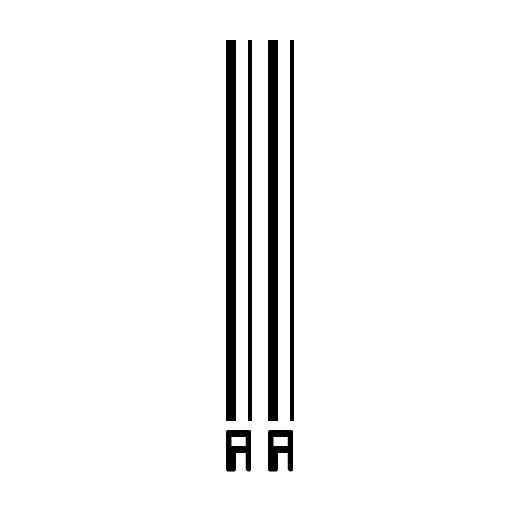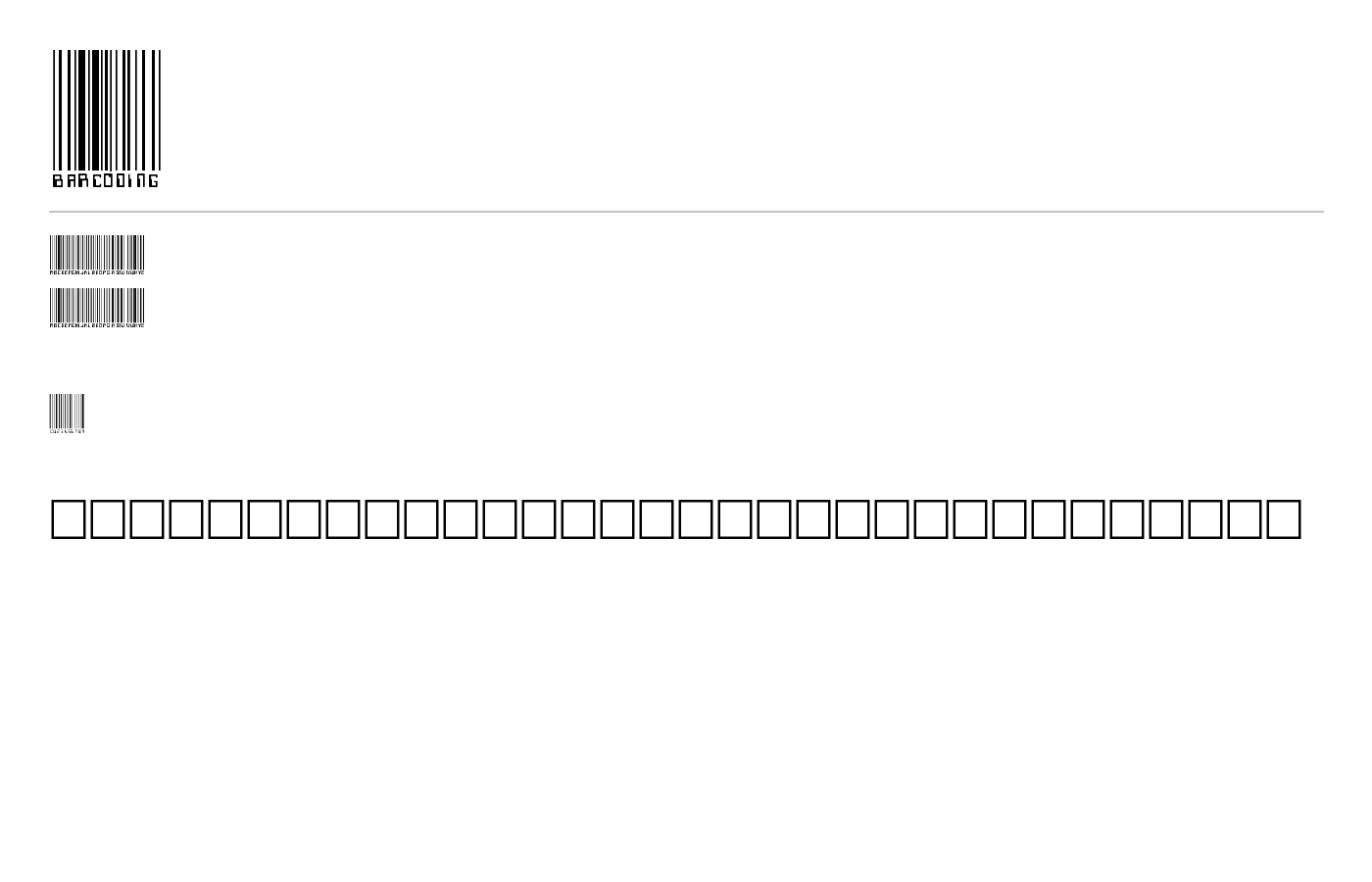
Barcoding Font is a unique, modern display typeface inspired by the visual style of barcode lines, featuring tall, narrow, and geometric letterforms with a consistent stroke weight that mimics scanning bars. This font delivers a futuristic, tech-savvy feel, making it ideal for packaging, branding, or graphic projects seeking an edgy, industrial look with a playful nod to technology and commerce. Its distinctive design works best in large-scale applications like logos and headlines where its concept can be fully appreciated.
Barcoding Font
About Barcoding Font